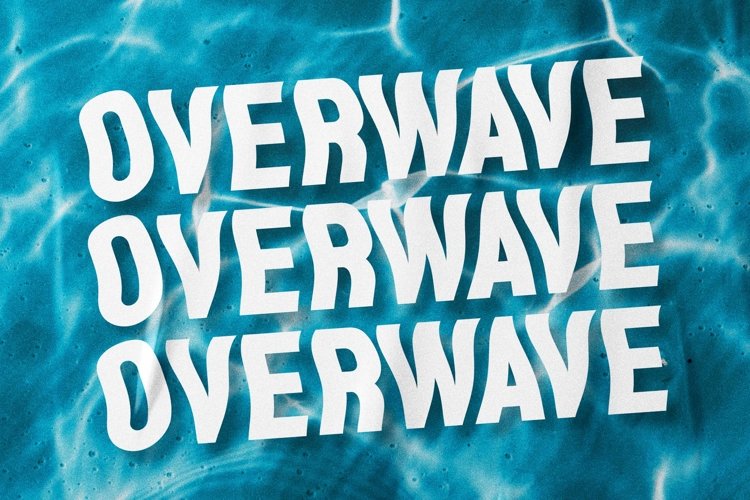
Introducing Overwave - Display Sans the wave model with a unique arch. very suitable for the title, logo, typography, clothes, magazines, brochures, packaging and much more for your design needs, making your designs more modern and professional